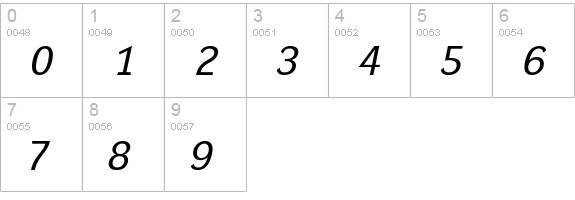
Dynamo Italic R E is a distinctive, italic variant in the Dynamo typeface family \xE2\x80\x94 well suited to design and typography projects.
Dynamo Italic R E is a sleek and modern font that exudes elegance and sophistication. Its italicized design adds a touch of flair to any project, making it perfect for both professional and creative purposes. With its clean lines and contemporary aesthetic, Dynamo Italic R E is versatile and eye-catching, sure to make a statement in any design. Best of all, Dynamo Italic R E is completely free to download at FontsMarket.com. Whether you're working on a branding project, website design, or any other creative endeavor, this font is a fantastic choice that won't break the bank. Don't miss out on the opportunity to enhance your work with the stylish and dynamic Dynamo Italic R E font – download it for free today!